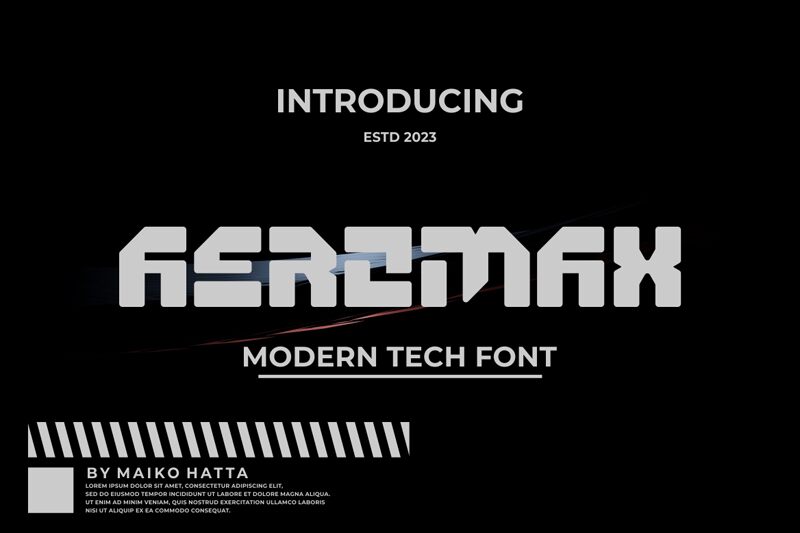
AEROMAX Bold
Aeromax Bold font is a display typeface that belongs to the techno category created by Gilang Ternadho of Maikohatta studio. A futuristic appearance is achieved within the text by mixing geometric components with angular shapes. The heavy weight contributes more toward the intense visual style and confidence exuded as each of the characters is clearly readable and distinctive.